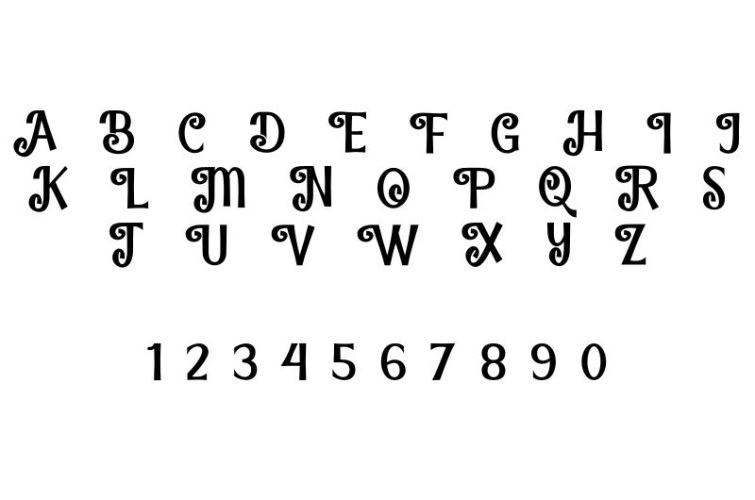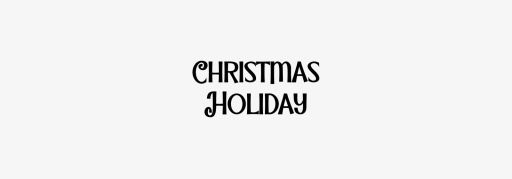
Christmas Holiday Font
Christmas Holiday Font brings a warm and festive handwritten style that fits seasonal designs perfectly. Its smooth curves and playful strokes add joy to cards, posters,…
Christmas Holiday Font brings a warm and festive handwritten style that fits seasonal designs perfectly. Its smooth curves and playful strokes add joy to cards, posters, packaging, and social media graphics. In addition, the friendly shapes help the text stand out with a cheerful holiday mood. Designers choose Christmas Holiday when they want a fun and lively script for winter and Christmas projects.
Christmas Holiday Font is built for size: event posters, hero headlines and billboard-style layouts.
High contrast display type like Christmas Holiday Font reads instantly in thumbnails and motion graphics.
What is Christmas Holiday Font good for?
Christmas Holiday Font is a Display Fonts typeface tagged Display, Display Fonts, Friendly, Handwritten. It works well for headlines, logos, posters, social media graphics and branding projects that need a distinctive display fonts look.